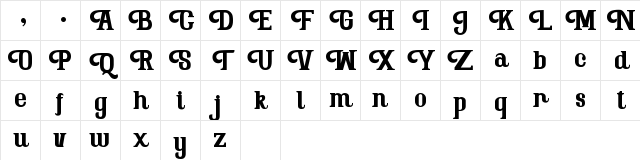
Complete The Arthaya Regular glyph index. Displaying only characters natively supported by The Arthaya Regular font.
The Arthaya is a composed and adaptable typeface that performs quietly and consistently across a wide range of design contexts.
Pro Tip: Use The Arthaya in both headline and body roles to test its range before committing to a single application.